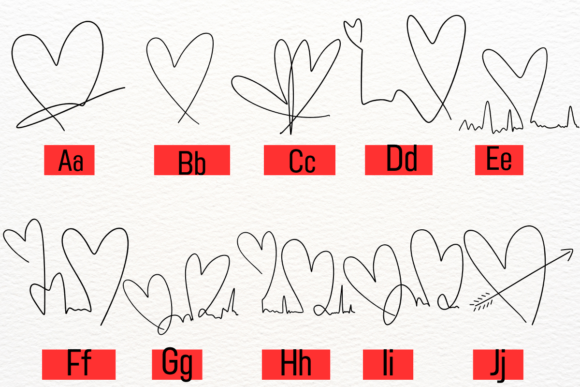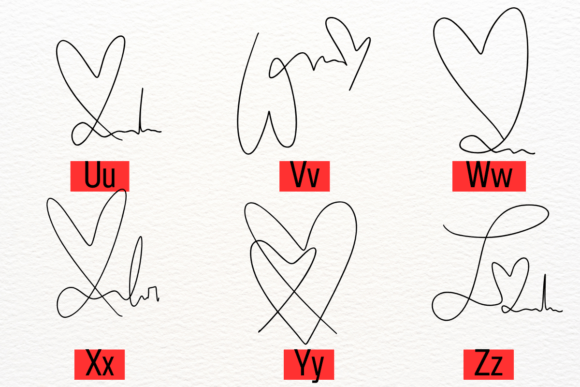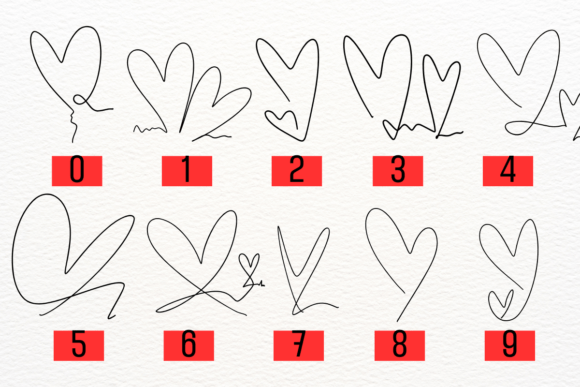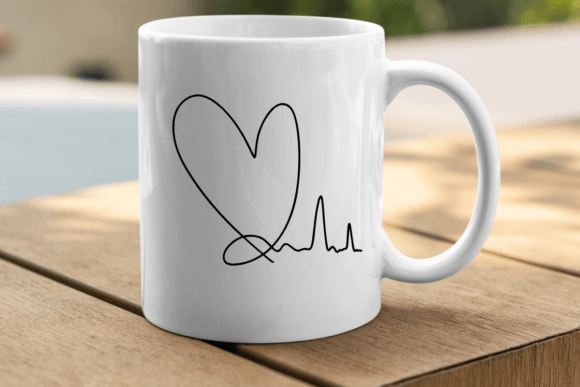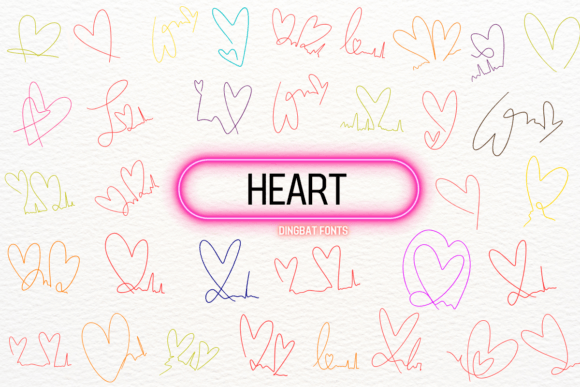
Heart Font: Add a Touch of Love and Romance to Your Designs
Are you looking for a way to add a romantic flair to your designs? Look no further than Heart Dingbats, a charming font filled with adorable heart-themed icons. This collection features a variety of heart shapes, including classic hearts, intertwined hearts, arrow-pierced hearts, and more. Perfect for designers, crafters, and anyone looking to add a touch of love and romance to their projects.
What is Heart Dingbats?
Heart Dingbats is a unique font that features a collection of heart-themed icons, perfect for adding a touch of love and romance to any project. The font includes a range of heart shapes, from classic and simple to more intricate and decorative designs. With Heart Dingbats, you can add a sweet and affectionate touch to your creative work, making it ideal for invitations, greeting cards, posters, and any design needing a romantic flair.
Features of Heart Dingbats
Heart Dingbats is a versatile font that offers a range of features, making it perfect for designers and crafters. Some of the key features include:
- Variety of heart shapes: The font includes a range of heart shapes, including classic hearts, intertwined hearts, arrow-pierced hearts, and more.
- Versatile: The font is perfect for a range of projects, including invitations, greeting cards, posters, and any design needing a romantic flair.
- High-quality design: The font is designed with high-quality graphics, ensuring that your projects look professional and visually appealing.
Uses for Heart Dingbats
Heart Dingbats is a versatile font that can be used for a range of projects, including:
- Invitations: Add a touch of love and romance to your wedding invitations, Valentine’s Day cards, and other special occasion invites.
- Greeting cards: Create beautiful and heartfelt greeting cards for birthdays, anniversaries, and other special occasions.
- Posters: Add a romantic flair to your posters, flyers, and brochures with Heart Dingbats.
- Social media graphics: Use Heart Dingbats to create beautiful and engaging social media graphics, such as Valentine’s Day posts and romantic getaways.
- Crafting projects: Heart Dingbats is perfect for crafters, and can be used for a range of projects, including scrapbooking, card making, and other paper crafts.
Tips for Using Heart Dingbats
Here are some tips for using Heart Dingbats:
- Experiment with different sizes and colors: Try out different sizes and colors to see what works best for your project.
- Combine with other fonts: Combine Heart Dingbats with other fonts to create a unique and visually appealing design.
- Use for backgrounds and textures: Use Heart Dingbats as a background or texture to add a romantic flair to your design.
Heart Dingbats is a charming font filled with adorable heart-themed icons, perfect for adding a touch of love and romance to any project. With its variety of heart shapes, ease of use, and versatility, Heart Dingbats is ideal for designers, crafters, and anyone looking to add a sweet and affectionate touch to their creative work. Whether you’re creating invitations, greeting cards, posters, or social media graphics, Heart Dingbats is the perfect font for you.